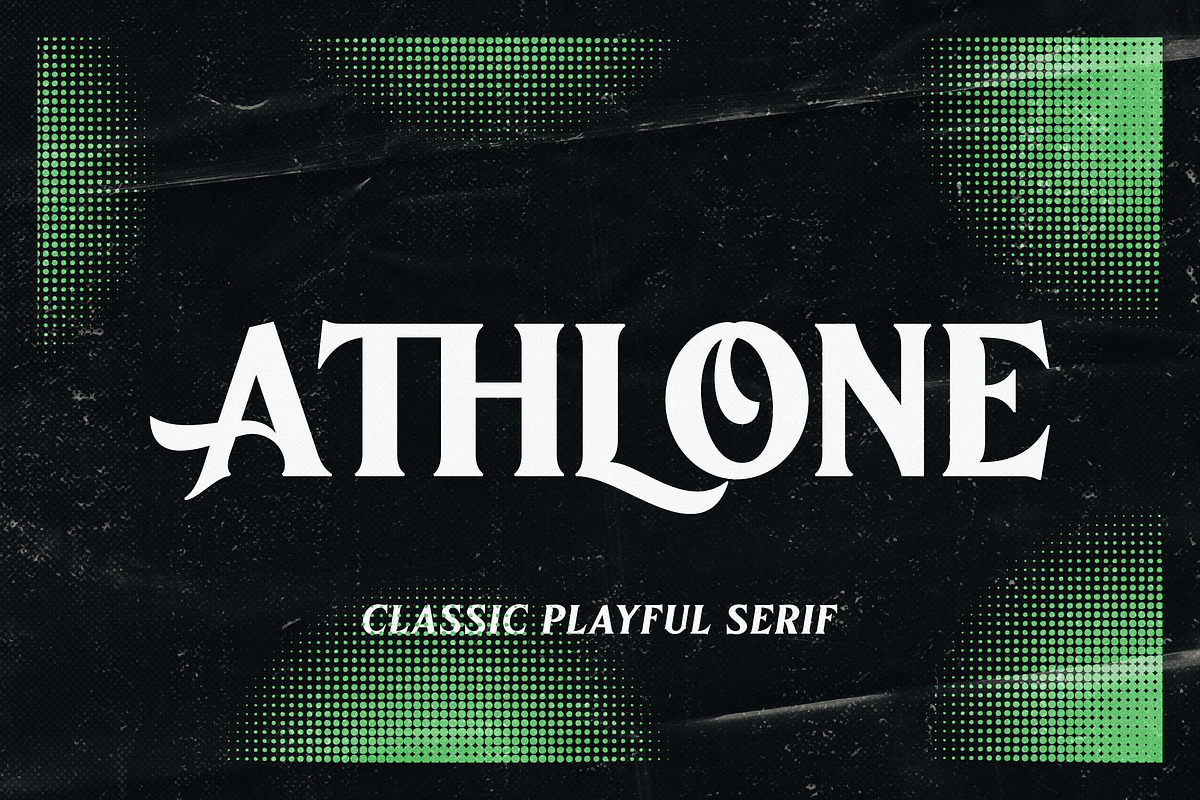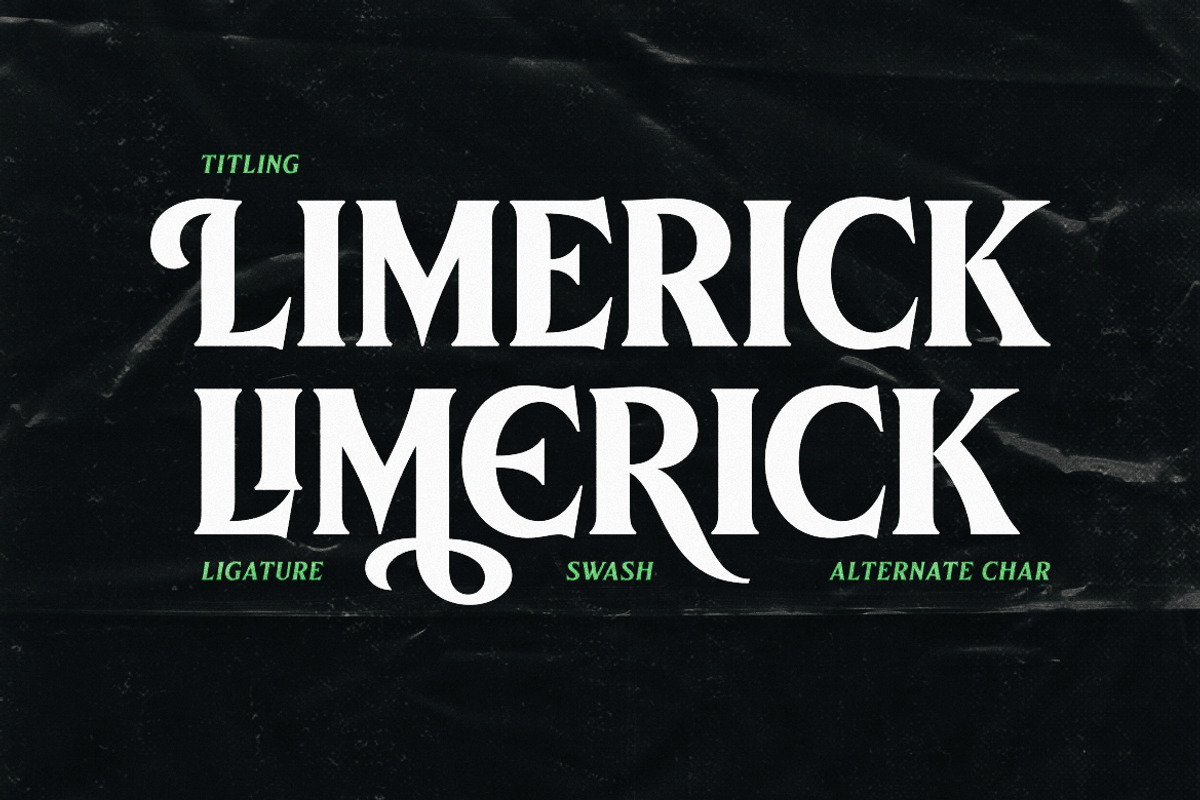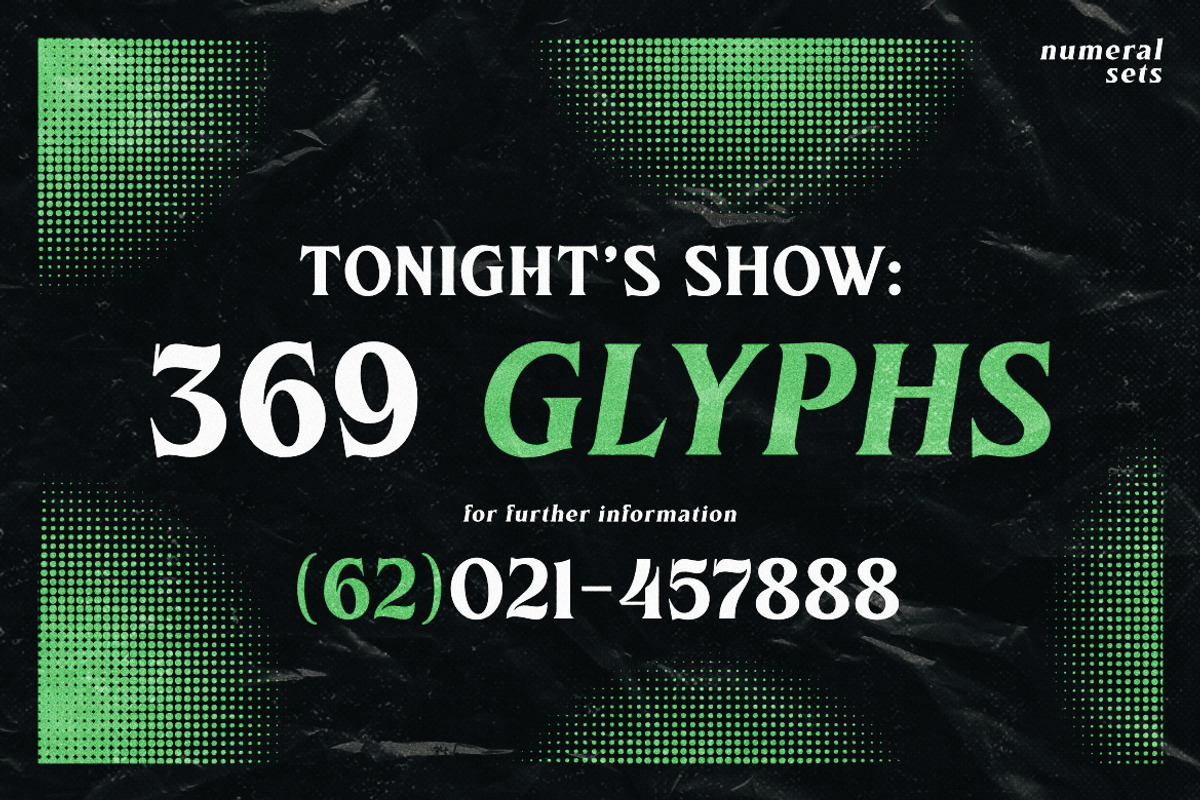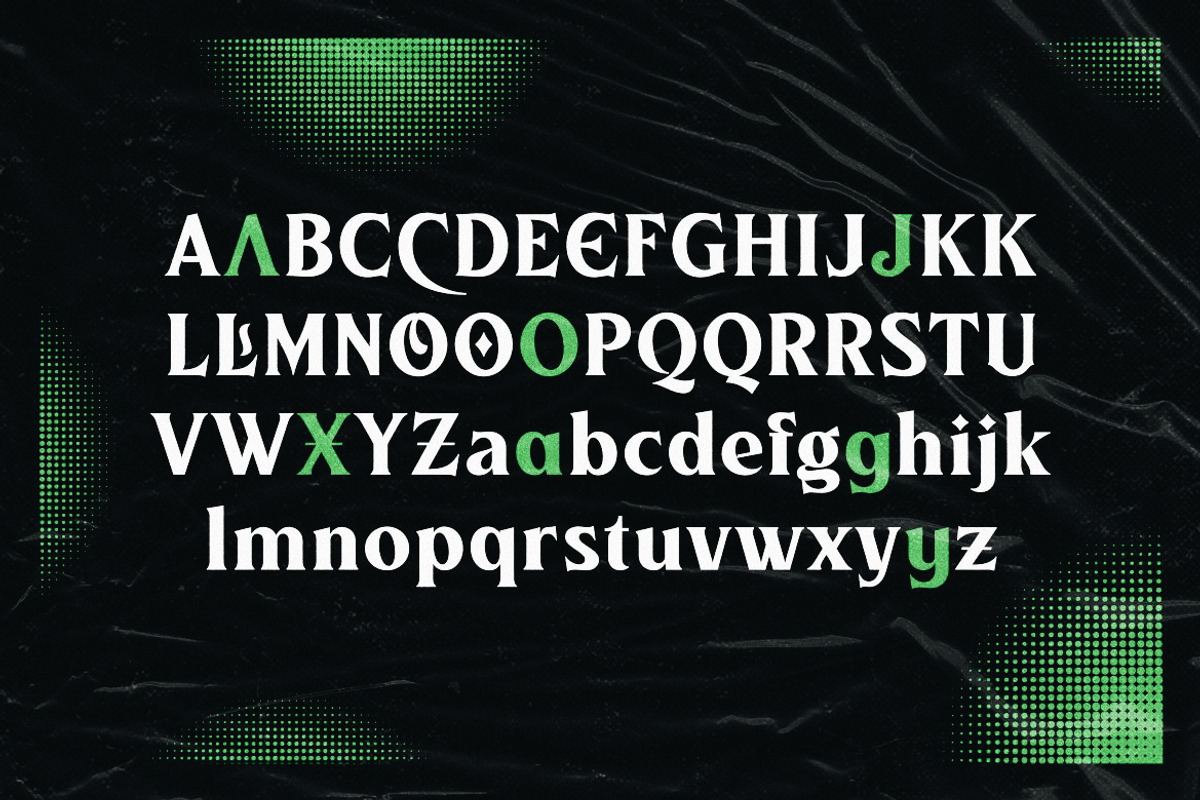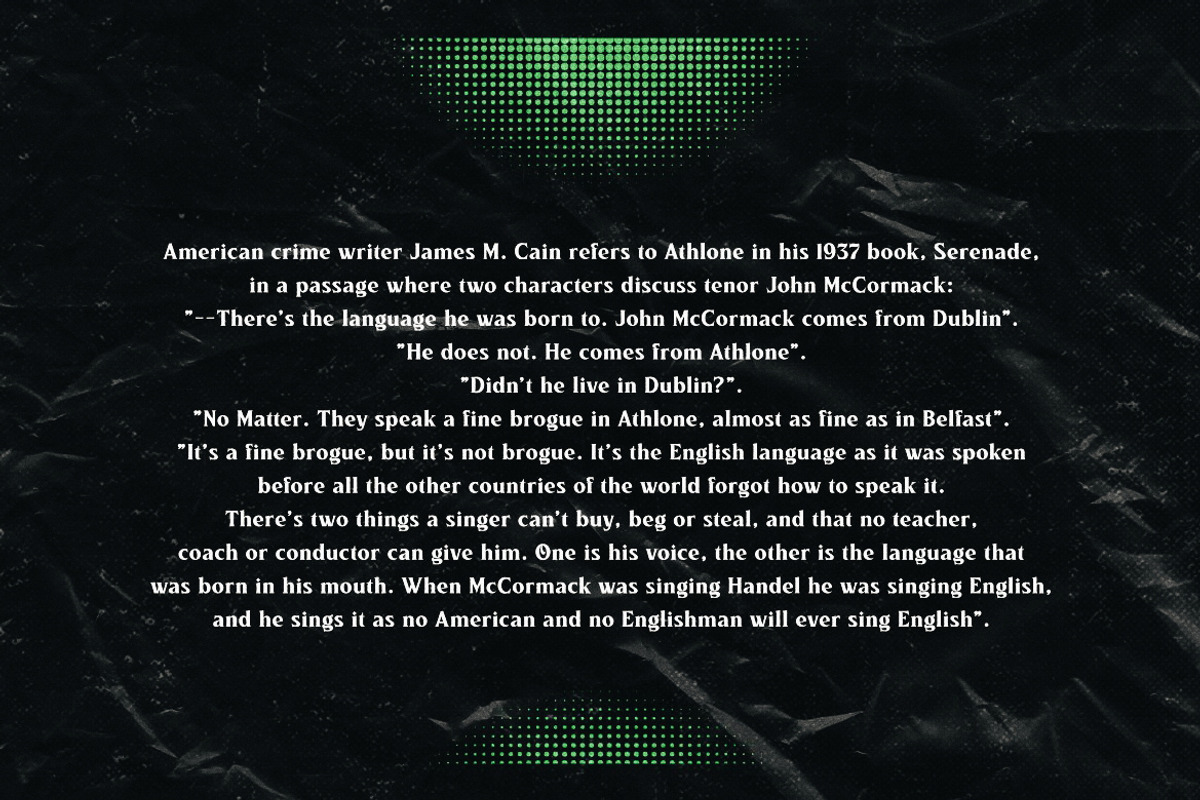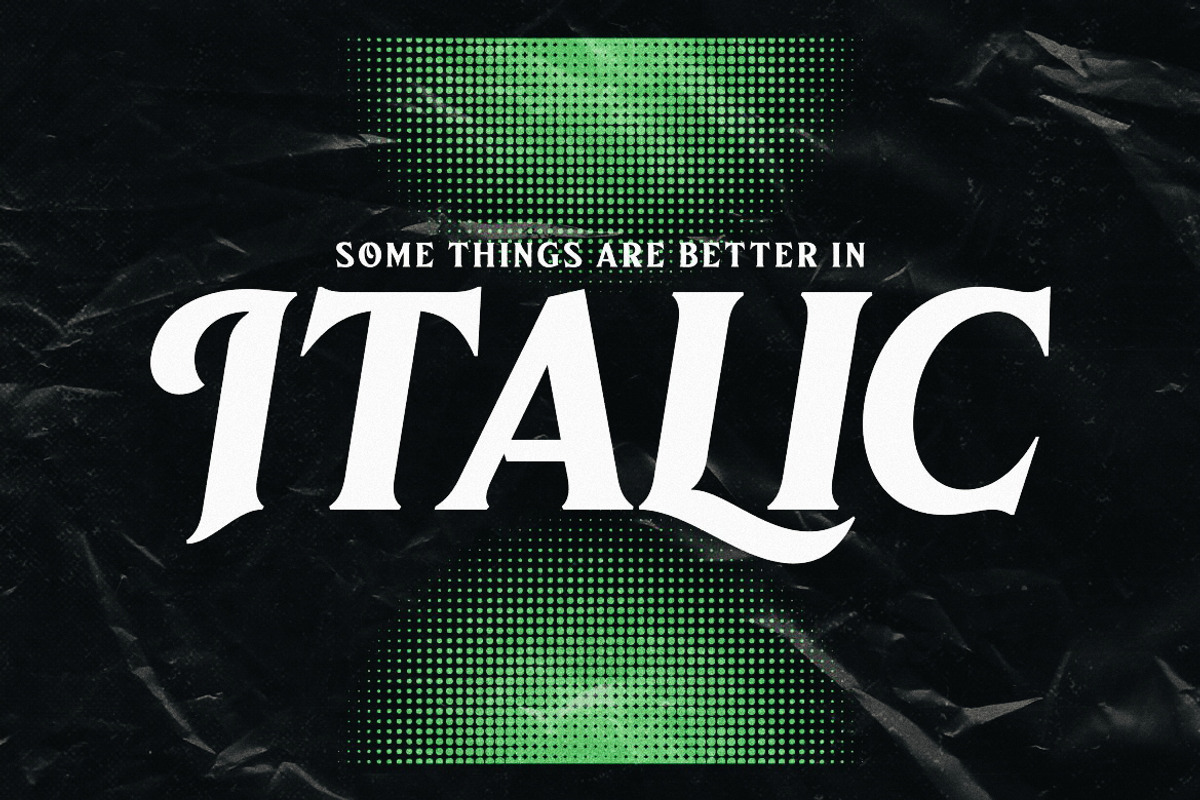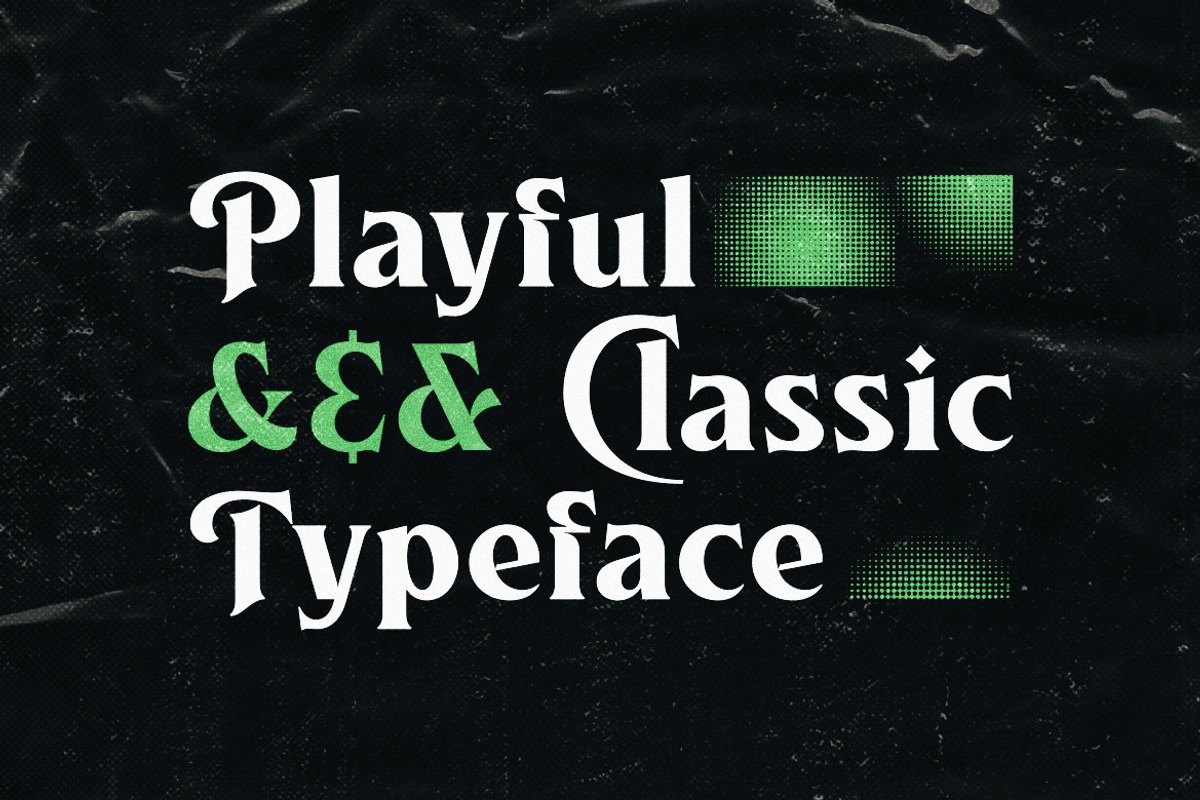
Athlone | Vintage Serif
Introducing Athlone, a display font that inspired by the vintage/classic letterforms. Mouse-crafted with high attention to details; clean lines, sharp edges and tempting curves. Available in slanted version too, gives you more options too play with. Suits best for title/headline, logo/logotype, packaging/label designs, etc.
Packed with 300+ glyphs, Athlone gives you standard upper/lower case characters, numerals, punctuations, some multilingual letters, alternate characters, stylistic sets, ligatures, etc. This font is a must have item for your designing arsenal.